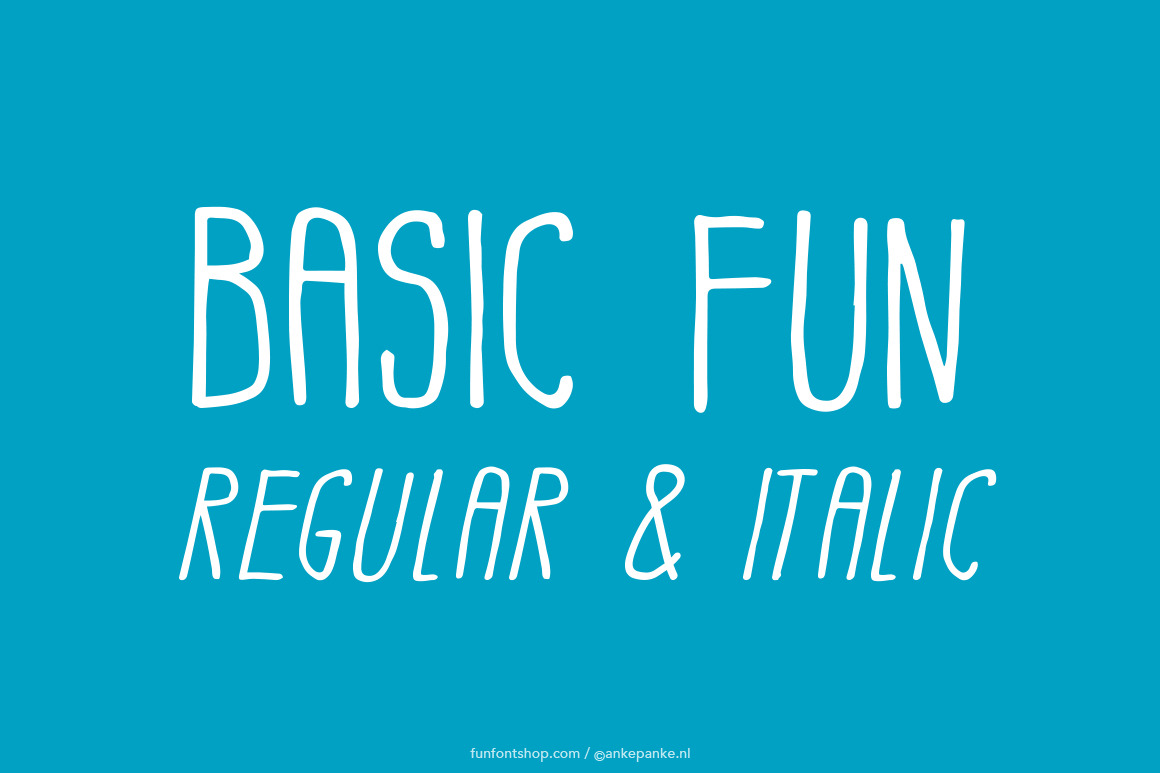
Basic Fun handmade Font
A thin, simple font with a regular and italic version included. This font was first draw by hand, scanned, vectorized and converted to a TTF file so you type with it. They have some imperfections, but I believe that adds to the handmade feeling.
Letters Uppercase and numbers
Punctuation !?#%&*±+=-_,.:;'"/|£€$@({[]})